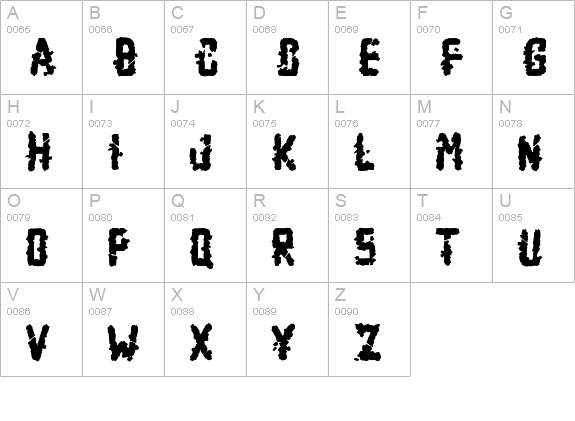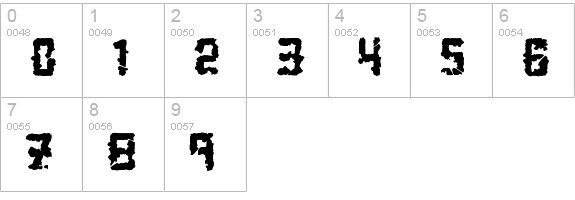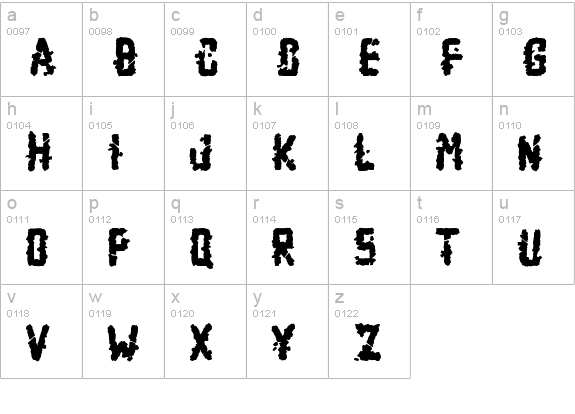
Zombie Apcalypse Font Details
Zombie Apcalypse is a free for personal use font in the Theme > Horror category, designed by Darrell Flood. It has been downloaded 124 times and is available for Windows, Mac and Linux.
Introducing Zombie Apocalypse font - a hauntingly captivating typeface that will send chills down your spine. This font perfectly encapsulates the eerie and chaotic essence of a zombie apocalypse, with its jagged edges and distressed appearance. Each letter looks as if it has been clawed and torn by the undead, creating a truly unique and spine-tingling effect.